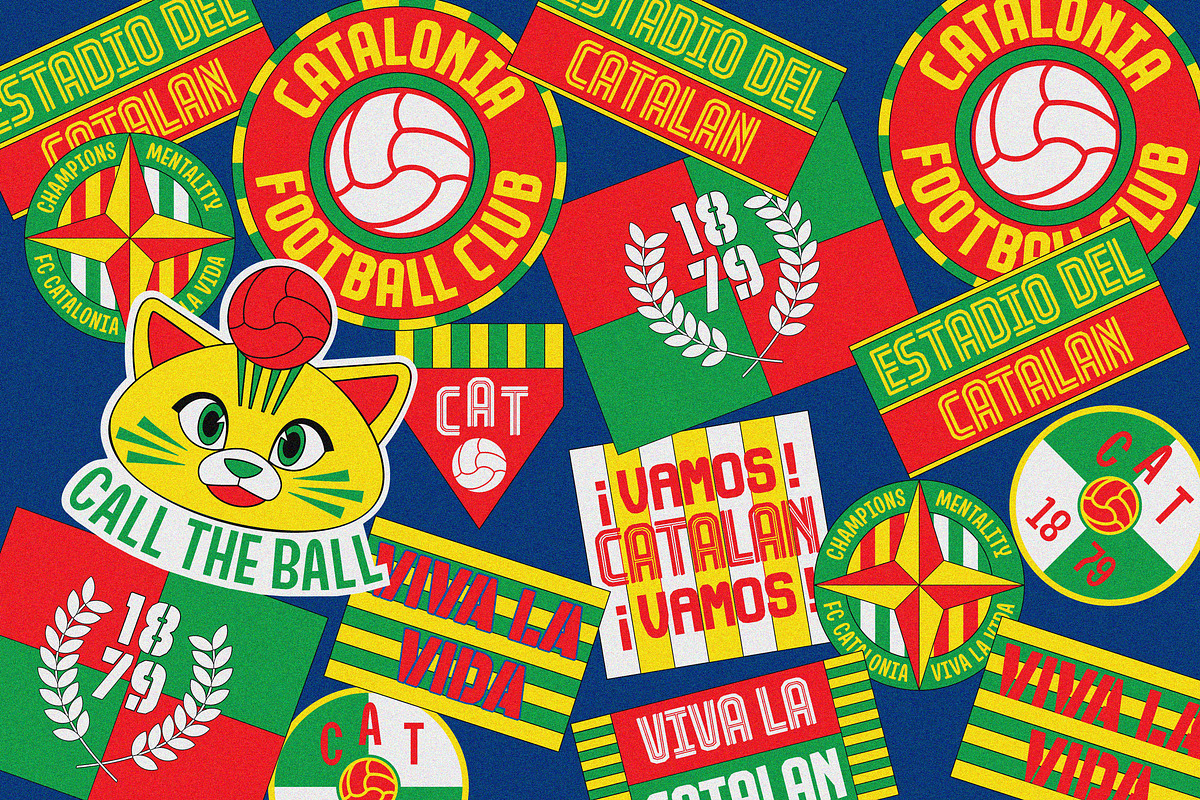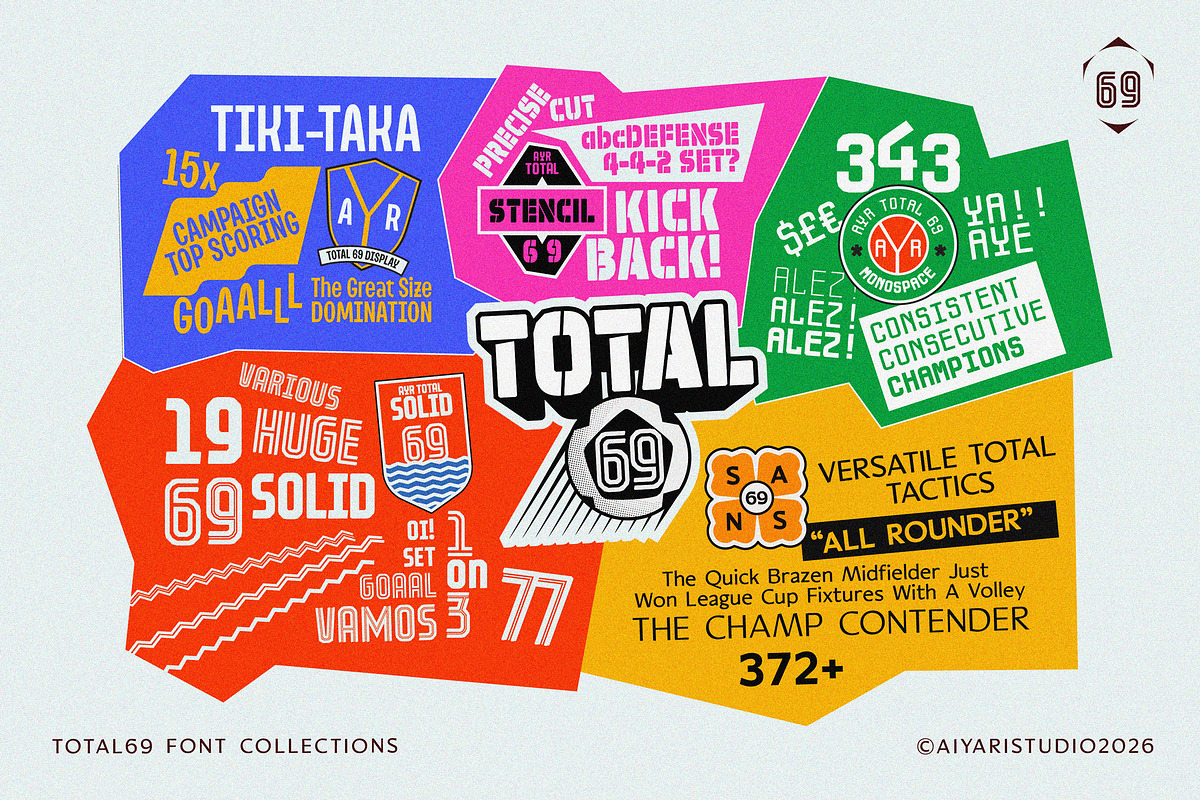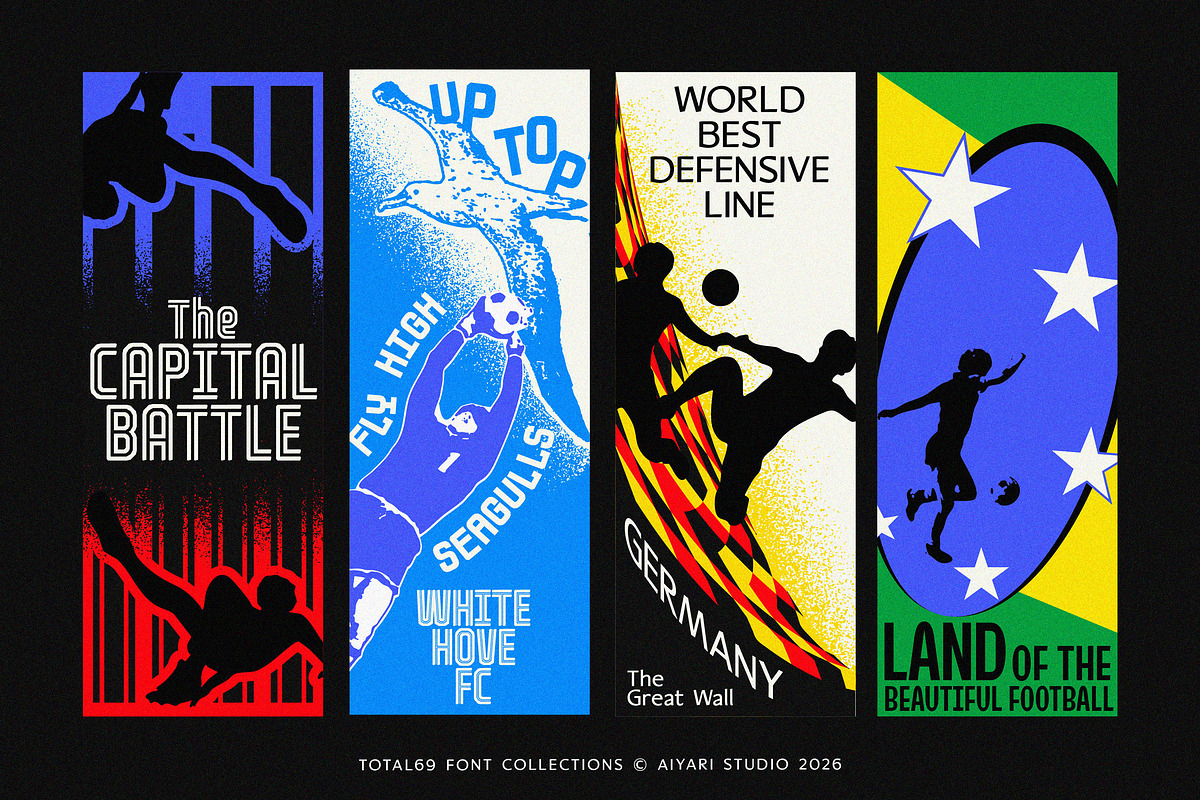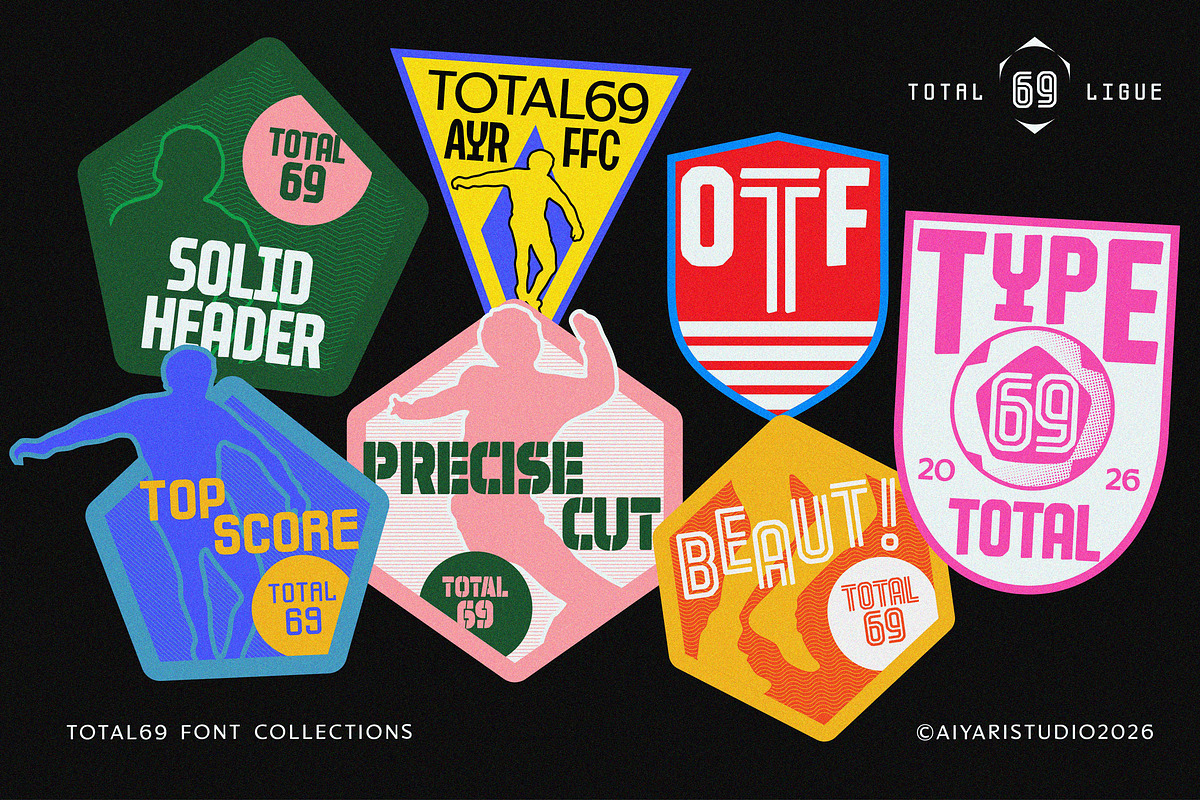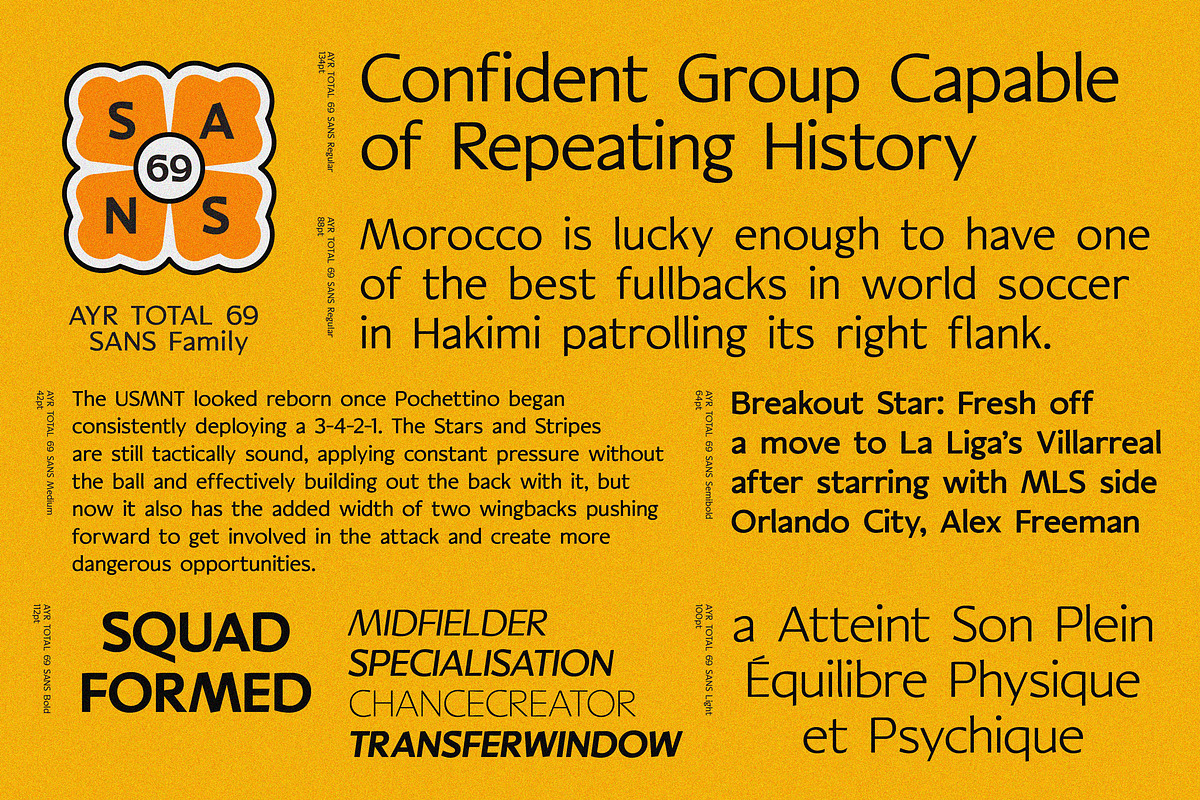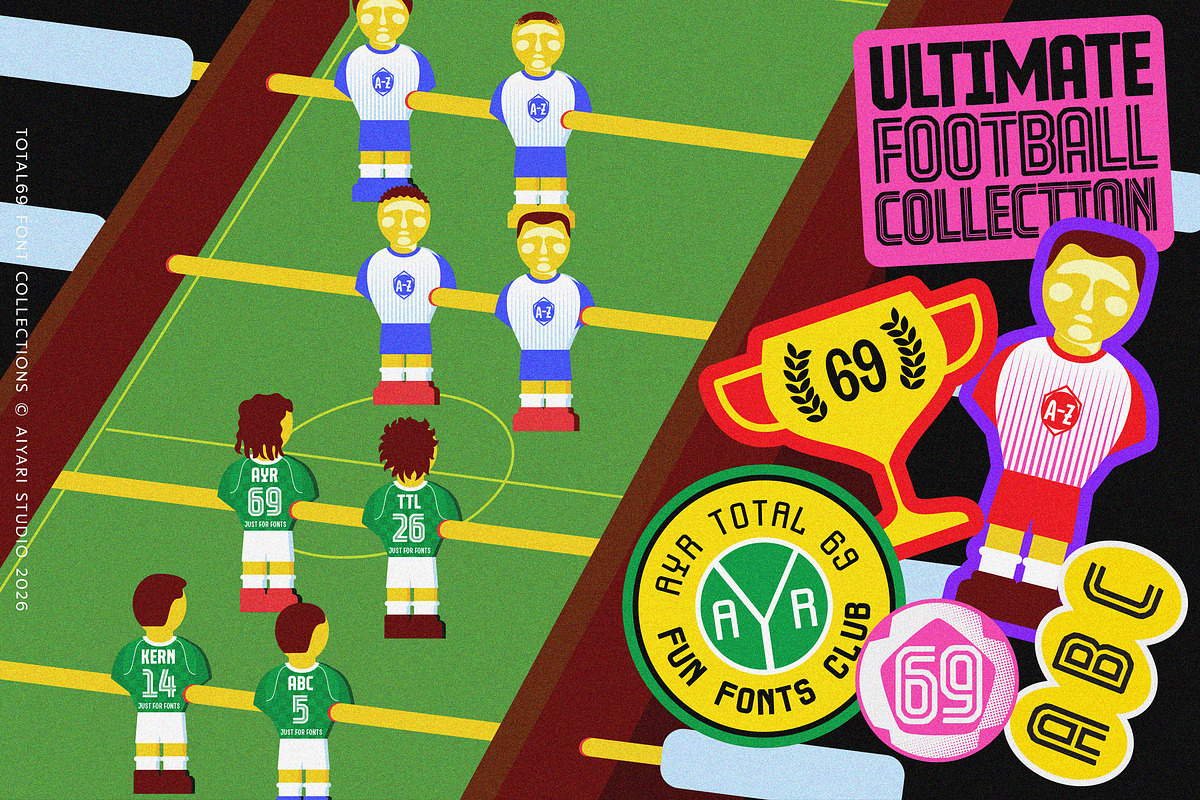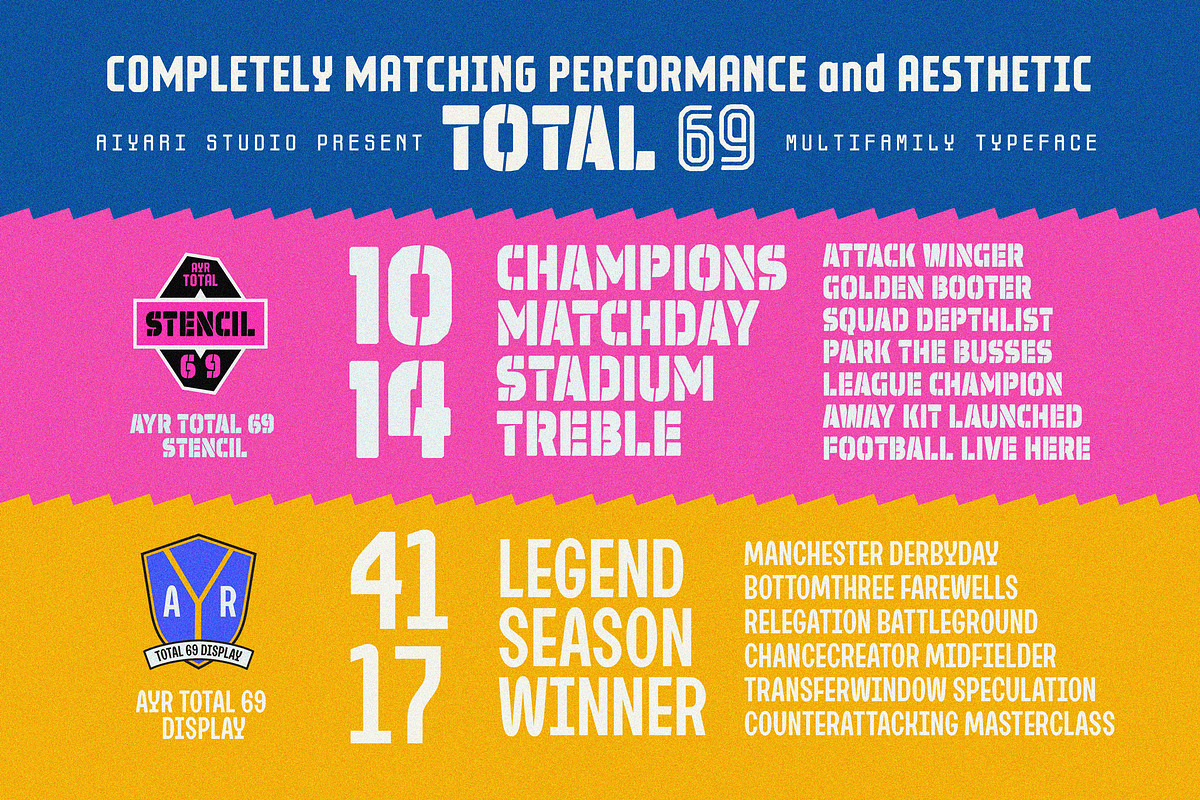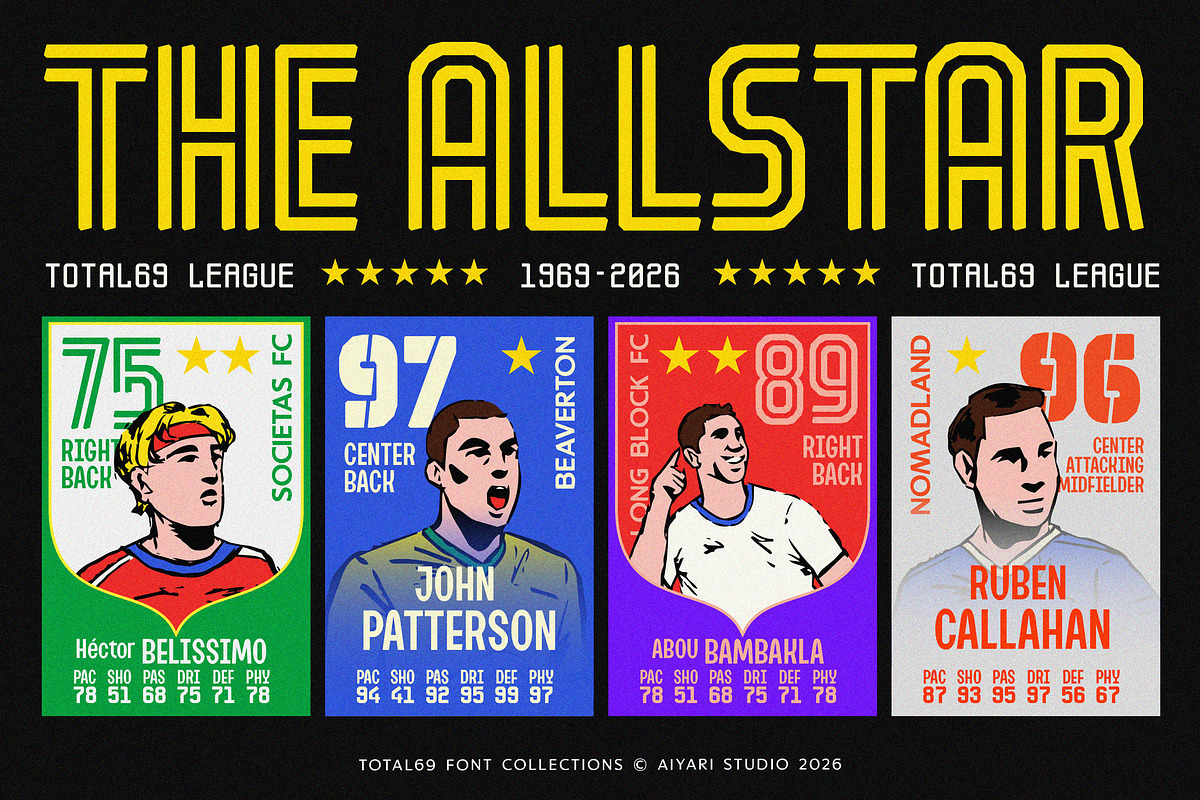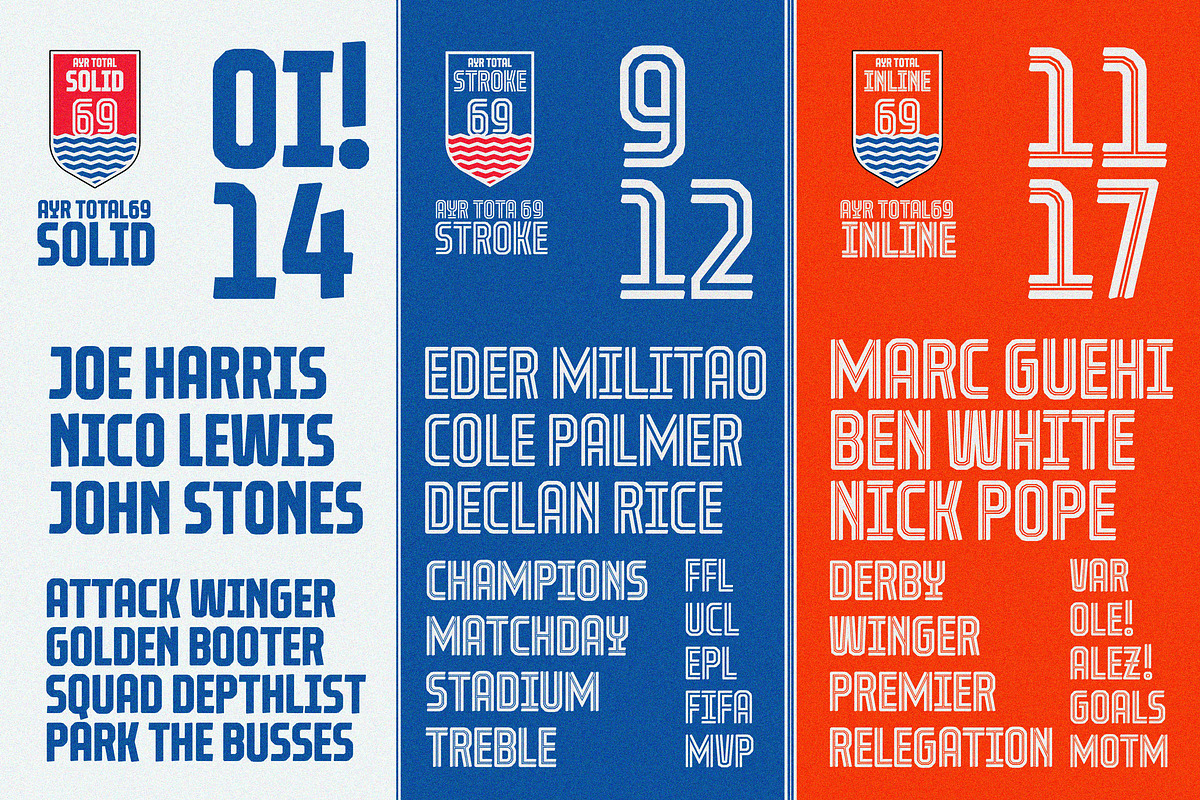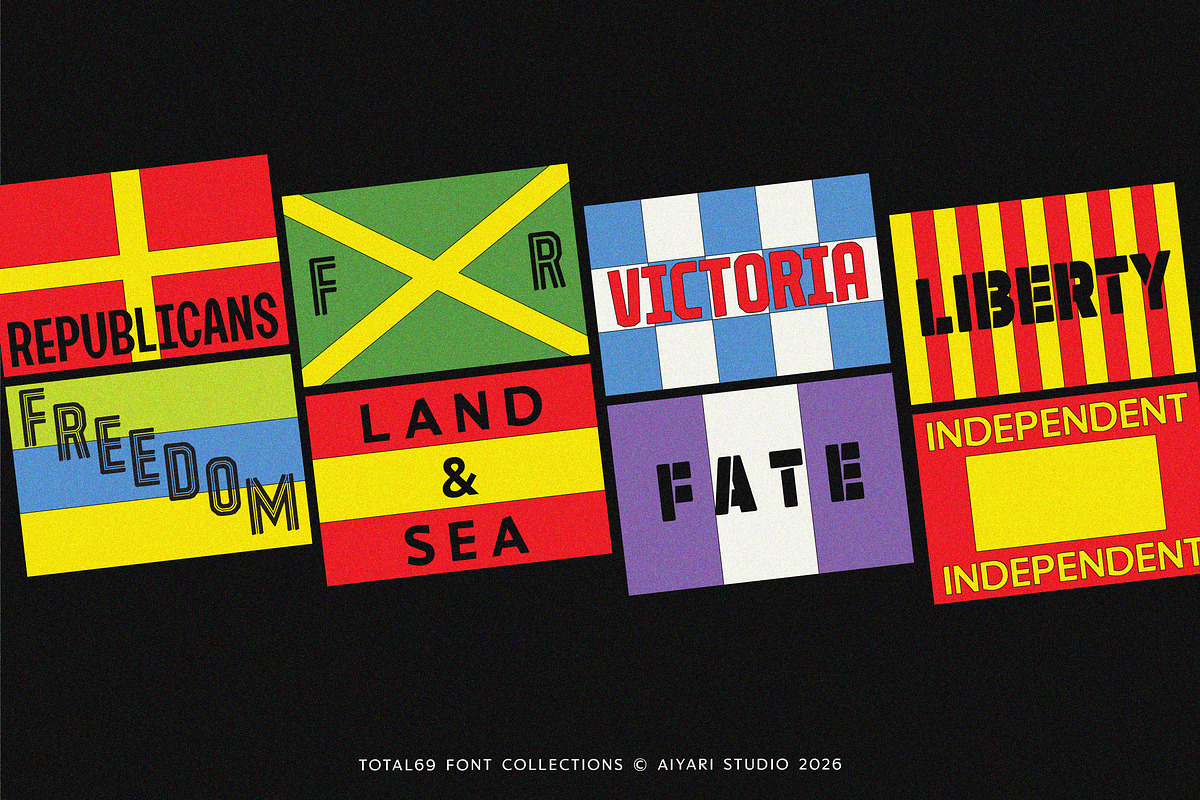
Total 69 — Football Font Collection
Total 69 is a vintage football font collection that brings championship heritage and modern matchday precision into one matching kit. Across five coordinated families and 21 styles, it serves up everything from bold kit numbers and club crests to clean multilingual body text, all drawn to play for the same team.
Five coordinated families:
- Stencil — sharp, cut-to-the-bone headlines
- Display — bold and commanding
- Solid — Regular, Inline & Stroke, built for kit numbers and crests
- Mono — Thin, Light, Regular, Bold
- Sans — 6 weights + matching italics, a humanist workhorse for text
What's inside:
- Full uppercase, lowercase, numerals, punctuation & symbols
- Ligatures & stylistic alternates
- Tabular figures for stat blocks, tables, and player cards
Perfect for: Sports branding, retro activewear, matchday programs, club crests, posters, and player rating cards.